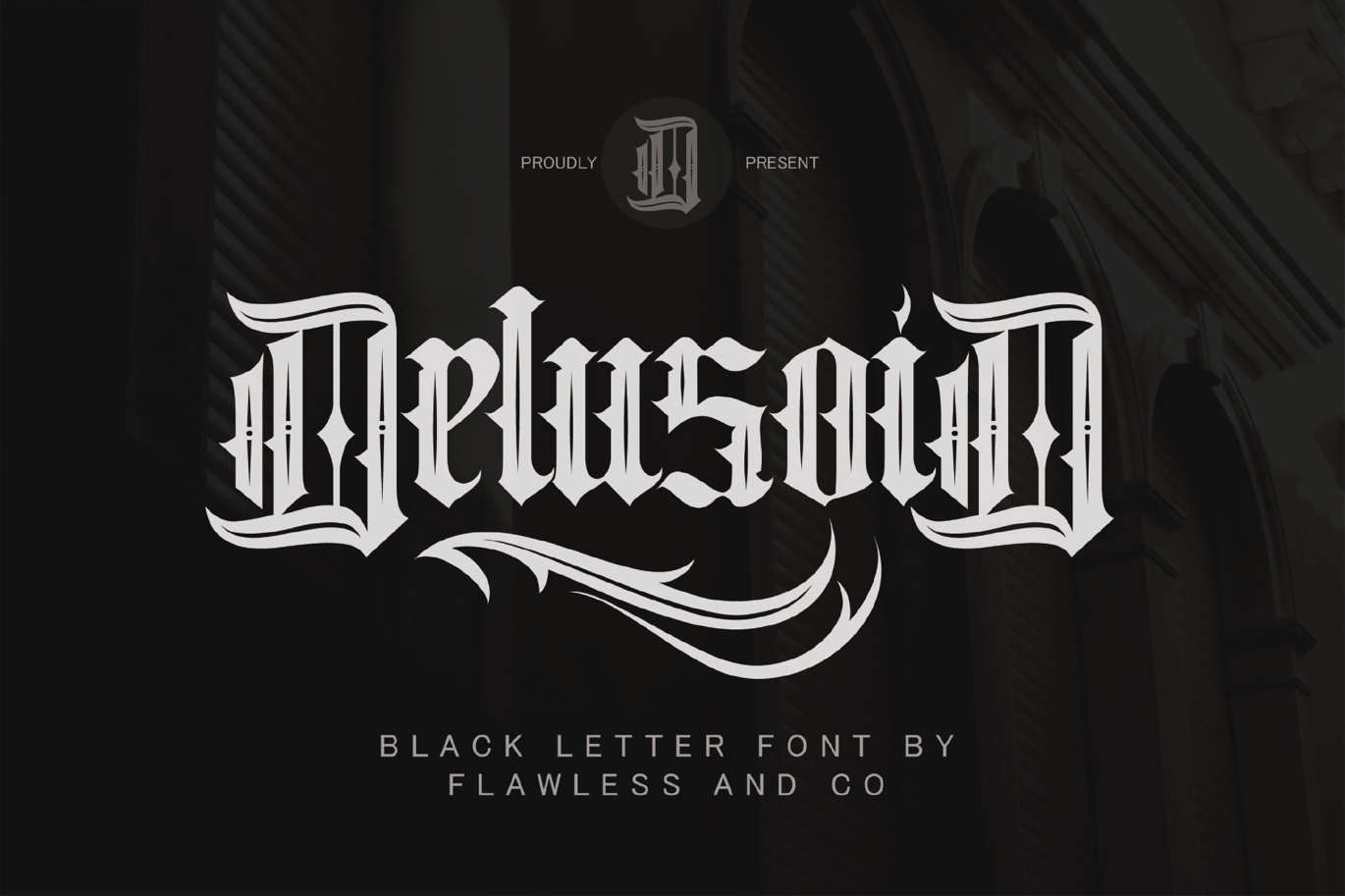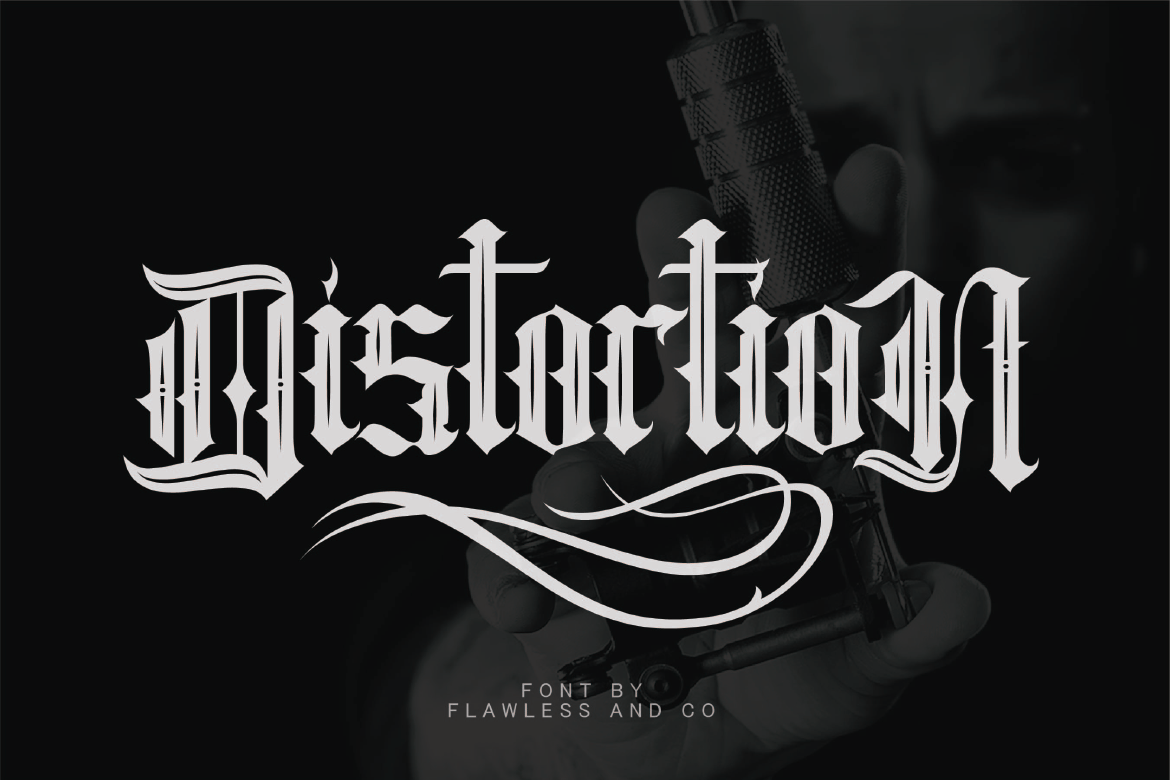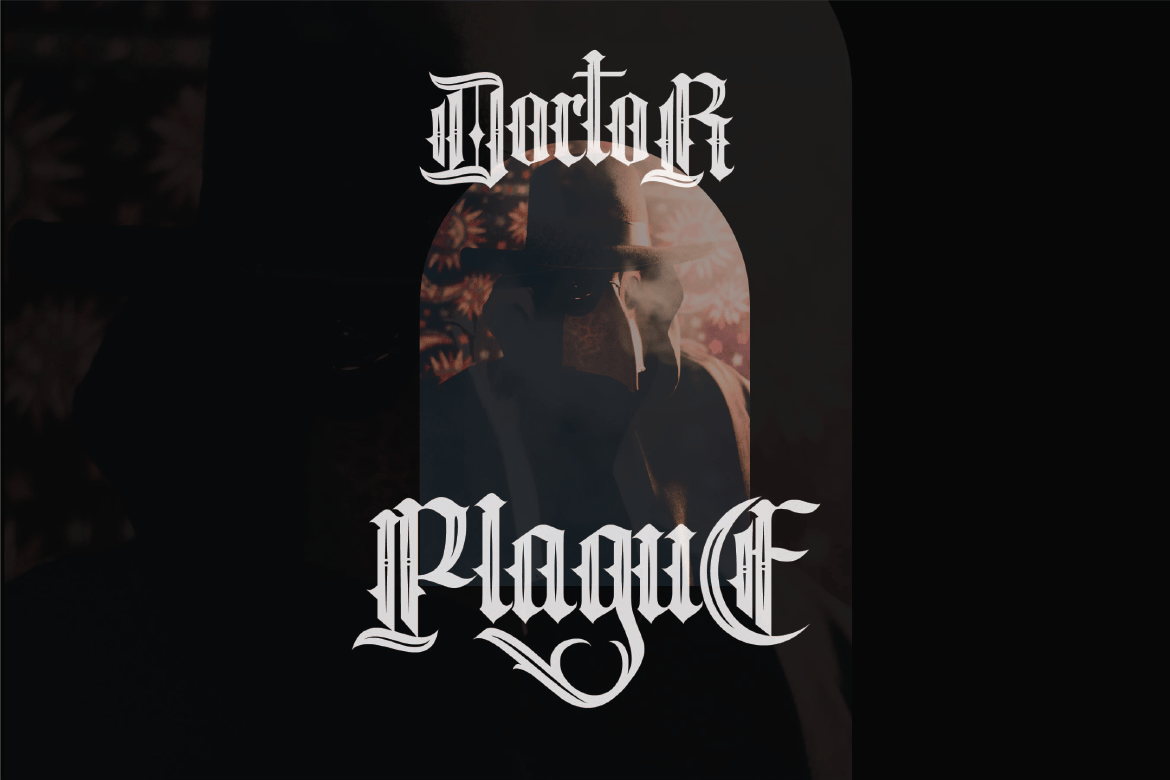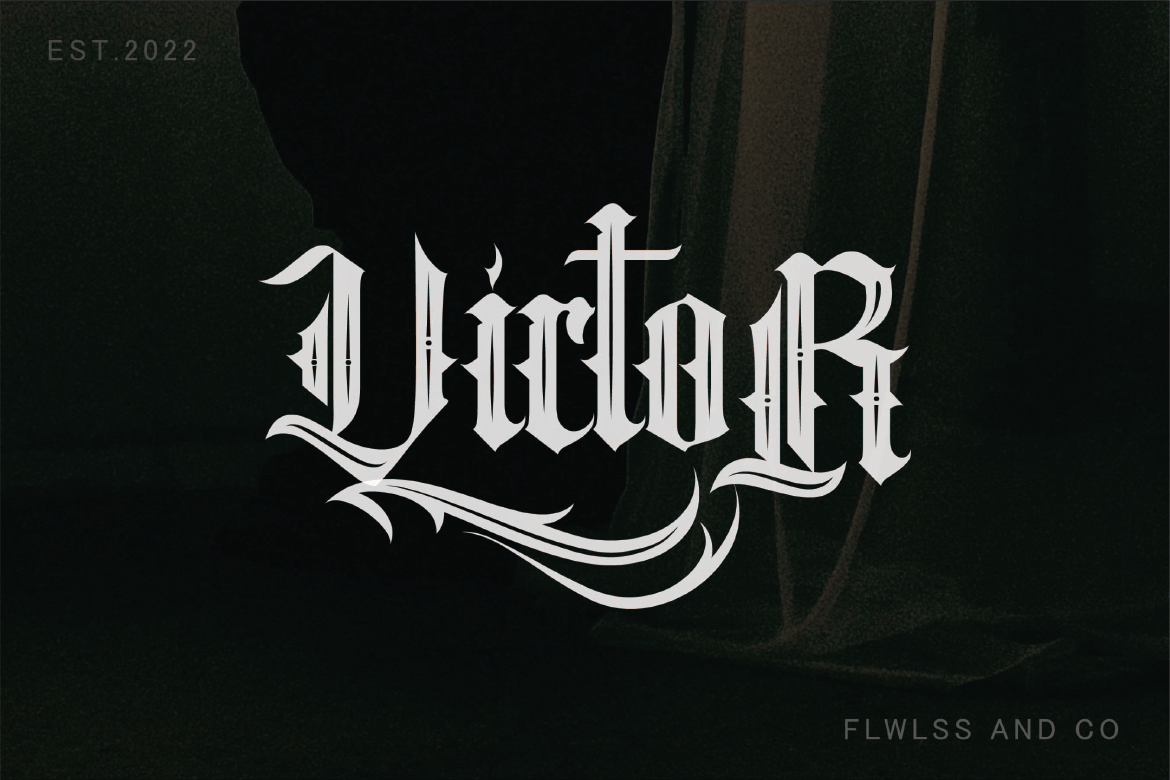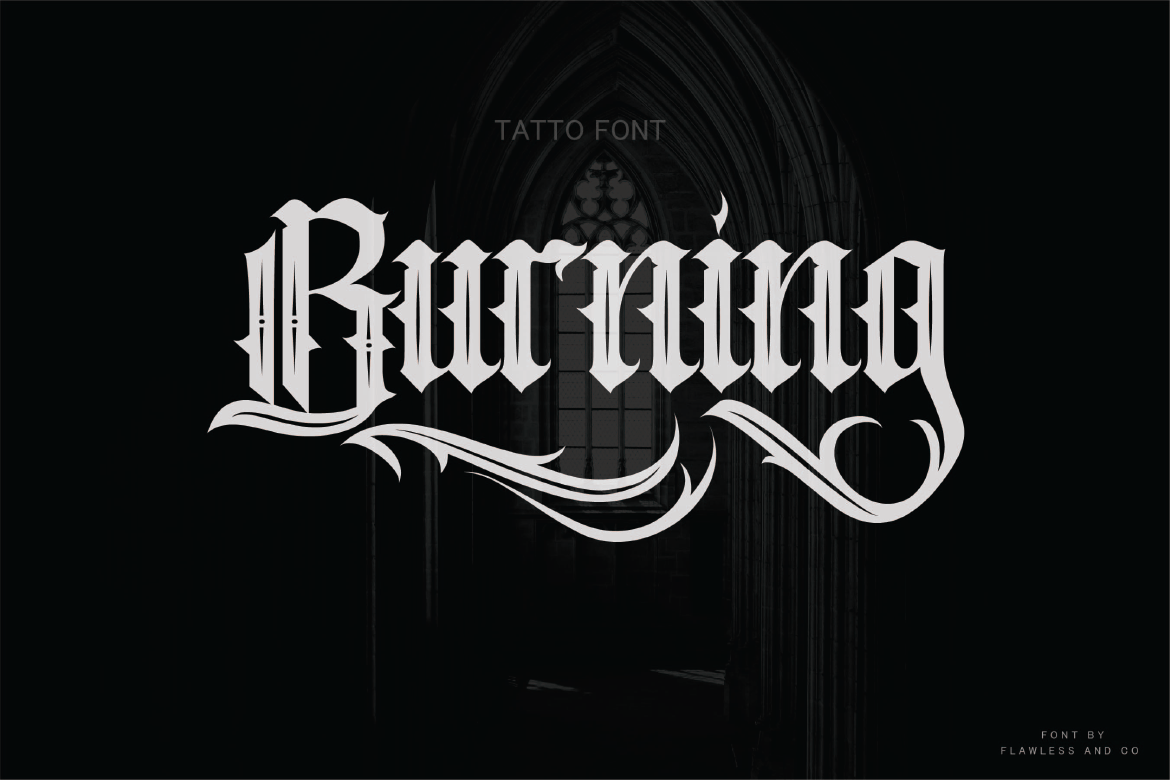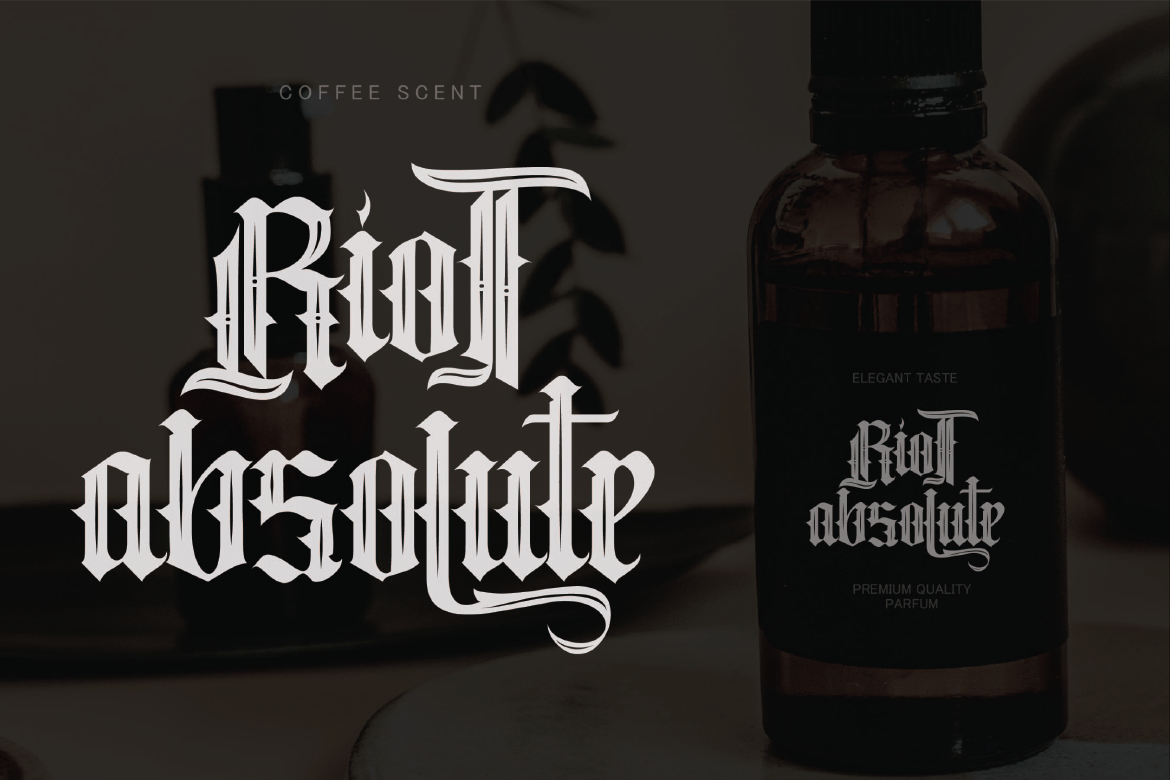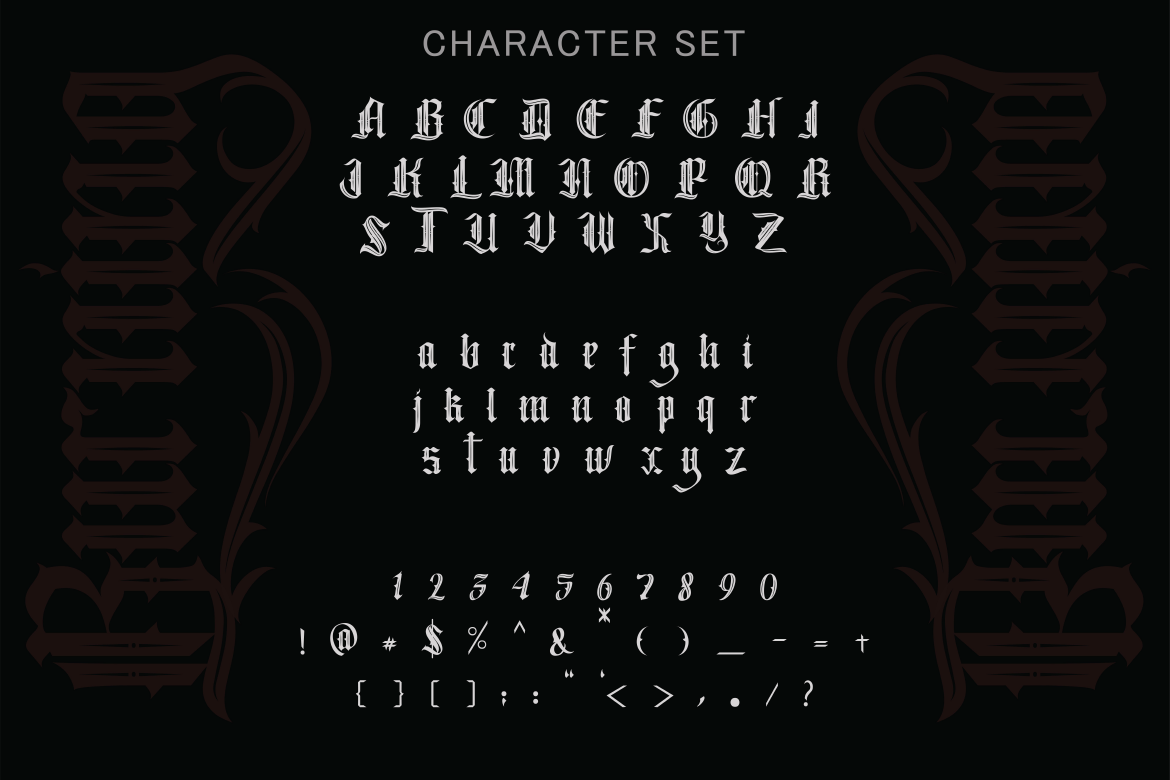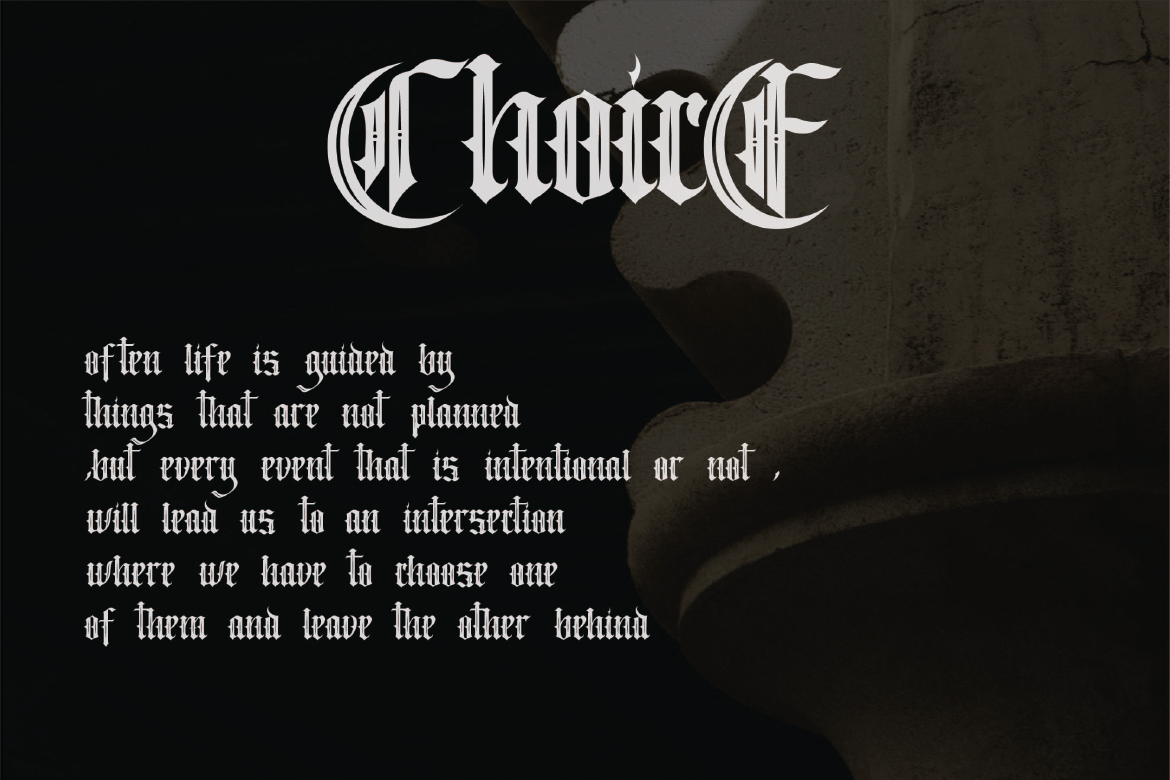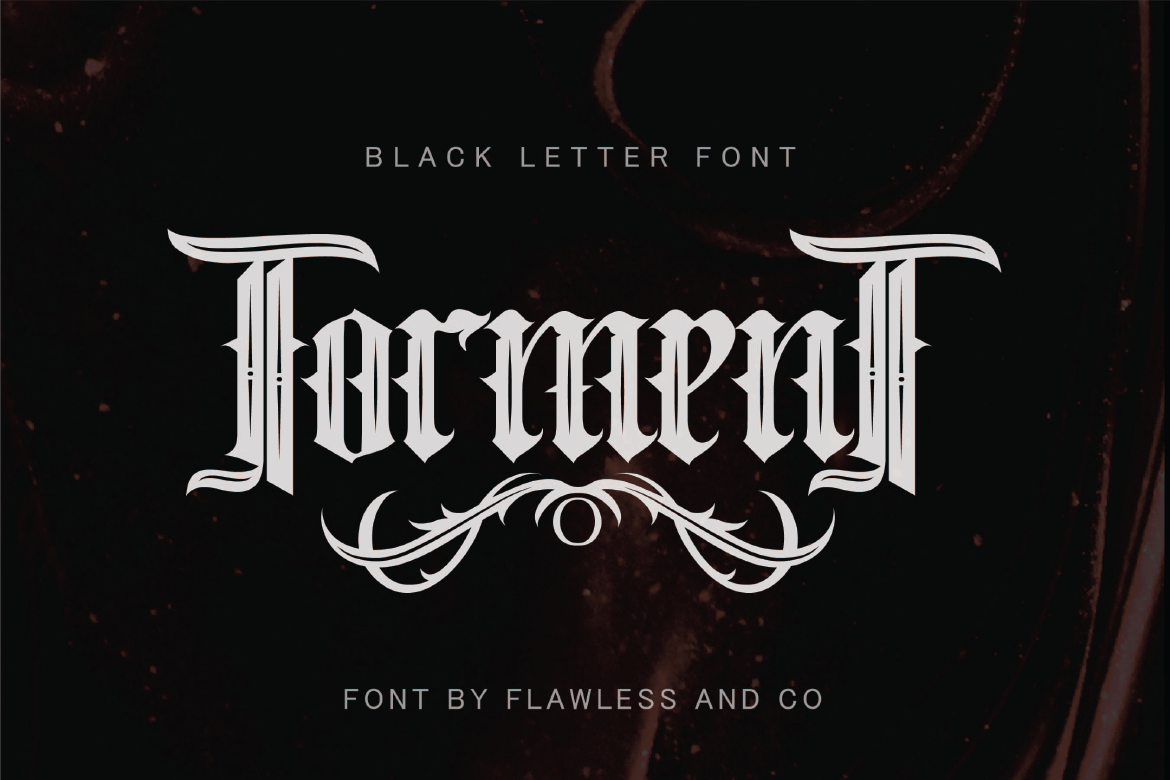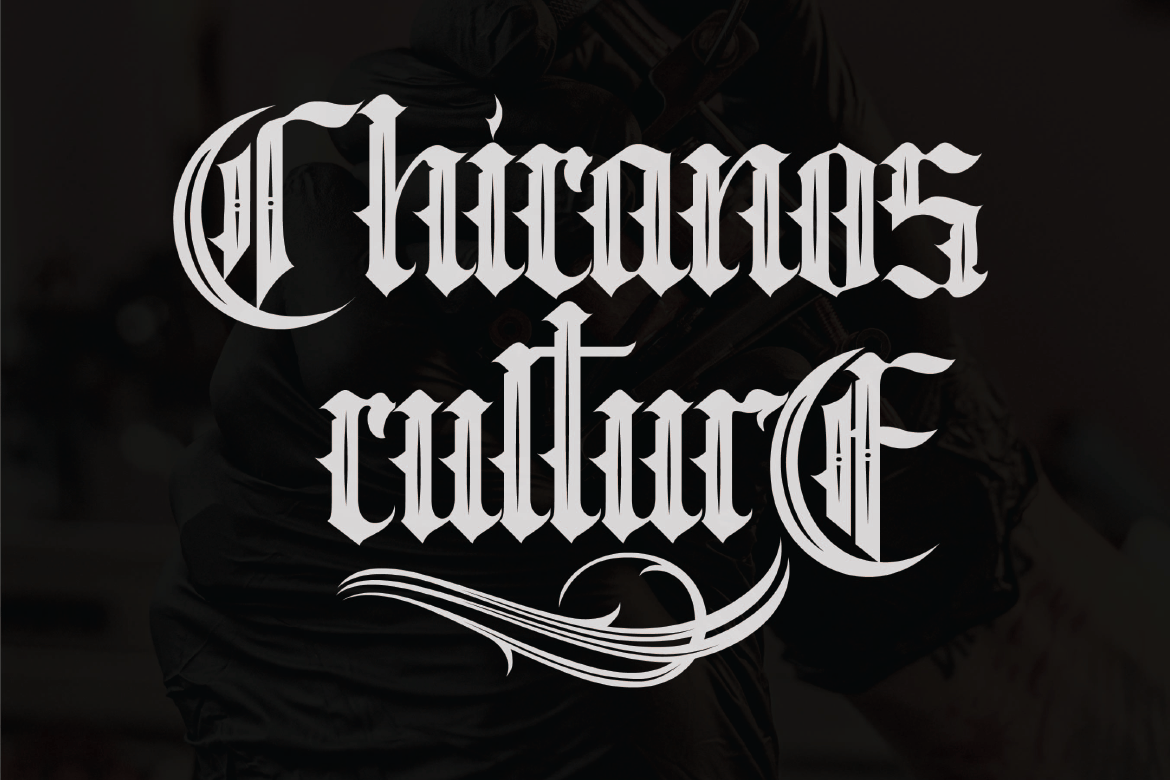
Delusoid – Blackletter Tattoo Font
Introducing our new “delusoid” Modern Blackletter Font with Elegant Style is perfect for your design.
Alternate Character